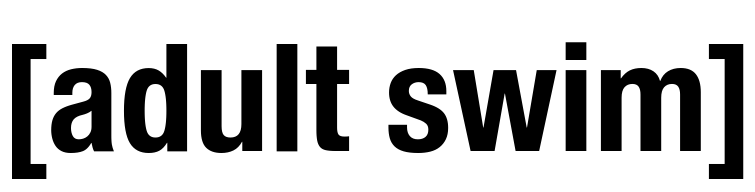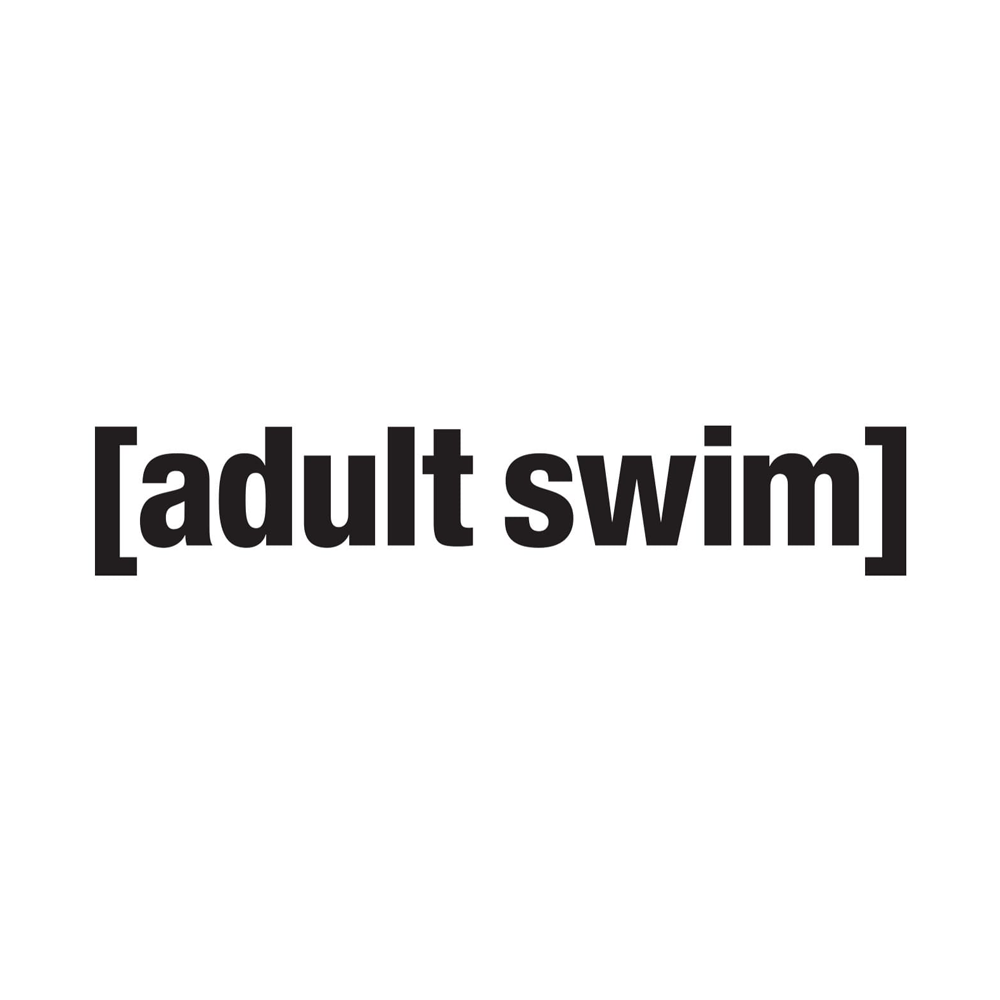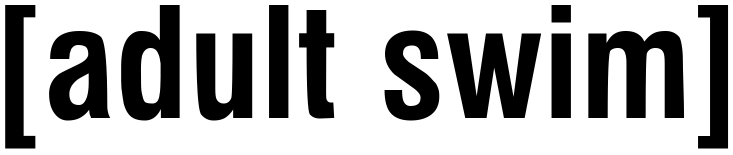
Adult Swim Font
EntertainmentAdult Swim is a popular cable and satellite TV network that offers a lineup of mature animated and live-action programming. It's known for its off-beat shows, such as "Rick and Morty" and "Aqua Teen Hunger Force".
The Adult Swim logo showcases it's title within square brackets, using a sans serif font known as Helvetica Neue Condensed Bold. This grotesque sans serif font was designed by Eduard Hoffmann and Max Miedinger and is published by Linotype. .